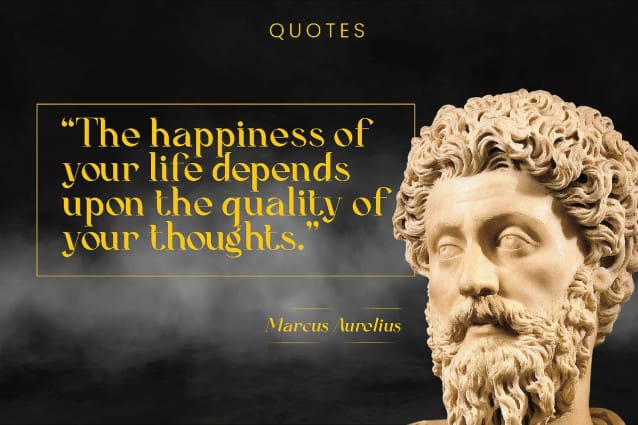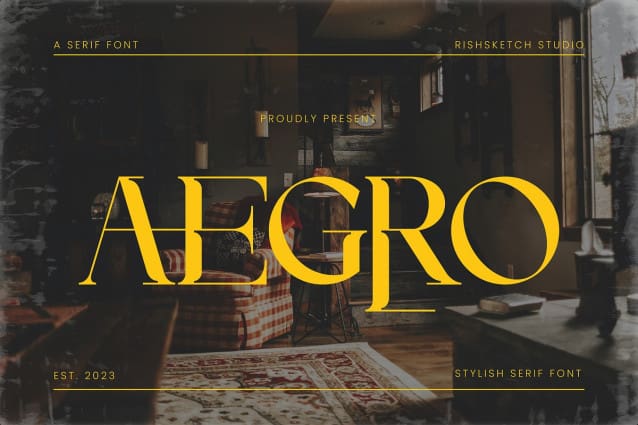
Aegro Font
Aegro Font – Modern Stylish Serif Font, from Rishsketch Studios, is a premium Serif Font, perfect for any project that requires a distinctive, and premium feel.